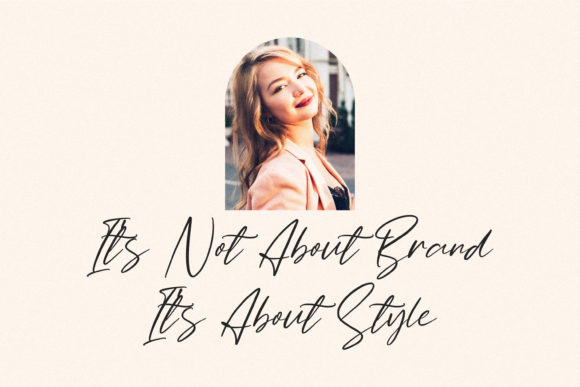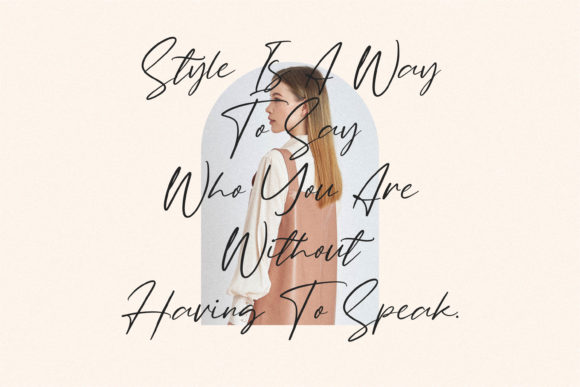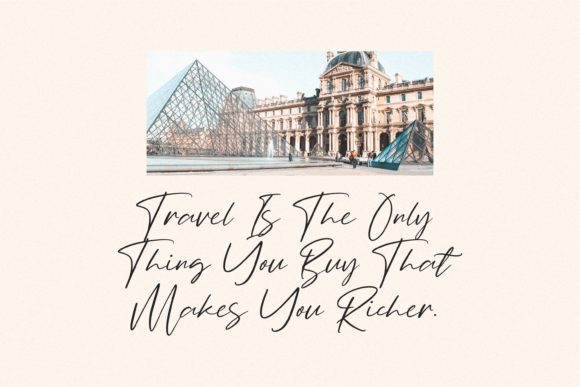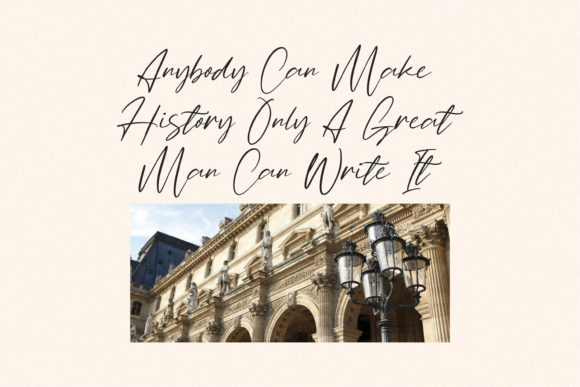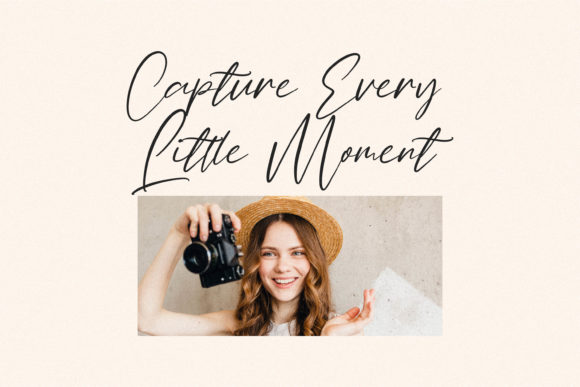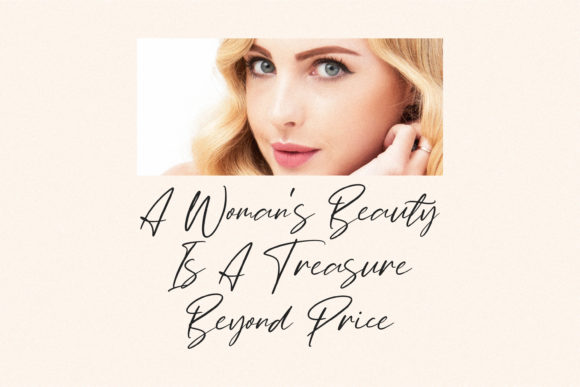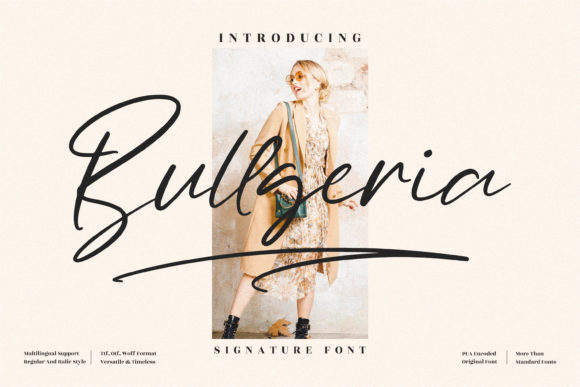
Bullgeria Font: Elevate Your Designs with Elegance and Sophistication
In the world of typography, a font can make or break a design. For designers and crafters seeking to add a touch of elegance and sophistication to their work, the Bullgeria Font is an exceptional choice. This stylish and delicate script font is poised to become a favorite among creative professionals, and for good reason.
The Beauty of Bullgeria Font
Bullgeria Font boasts a clean, thin, and smooth vibe that instantly elevates any design it’s added to. Its delicate nature makes it perfect for projects that require a touch of refinement, such as wedding invitations, branding materials, and packaging design. The font’s stylish appearance is sure to captivate audiences and leave a lasting impression.
One of the standout features of Bullgeria Font is its PUA (Private Use Area) encoding. This means that users can access all the glyphs and swashes with ease, allowing for greater flexibility and creativity in design. With PUA encoding, designers can effortlessly navigate the font’s extensive character set, including alternates, ligatures, and ornaments, to create unique and visually stunning designs.
The versatility of Bullgeria Font makes it suitable for a wide range of design applications. Whether you’re working on:
• Branding and packaging design
• Signage and display graphics
• Digital media and advertising
• Crafting and DIY projects
Bullgeria Font is sure to become an indispensable part of your design toolkit. Its delicate yet stylish appearance allows it to seamlessly integrate with various design styles, from modern and minimalist to vintage and ornate.
Why Choose Bullgeria Font?
With so many fonts available, why choose Bullgeria Font? Here are just a few reasons why designers and crafters are falling in love with this exceptional font:
• Unique and distinctive appearance: Bullgeria Font’s delicate and stylish design sets it apart from more common fonts.
• Ease of use: PUA encoding makes it simple to access and use the font’s extensive character set.
• Versatility: Suitable for a wide range of design applications and styles.
• Elegance and sophistication: Adds a touch of refinement and luxury to any design.
Tips for Using Bullgeria Font
To get the most out of Bullgeria Font, here are a few tips to keep in mind:
• Experiment with different sizes and line heights: To create visual interest and hierarchy in your design.
• Pair with complementary fonts: To add contrast and create a unique typographic combination.
• Take advantage of glyphs and swashes: To add decorative elements and personality to your design.
Bullgeria Font is a stylish and delicate script font that is sure to become a favorite among designers and crafters. Its clean, thin, and smooth vibe, combined with PUA encoding for easy access to glyphs and swashes, make it an exceptional choice for a wide range of design applications. Whether you’re looking to add elegance and sophistication to your work or simply want to try something new and unique, Bullgeria Font is an excellent choice.